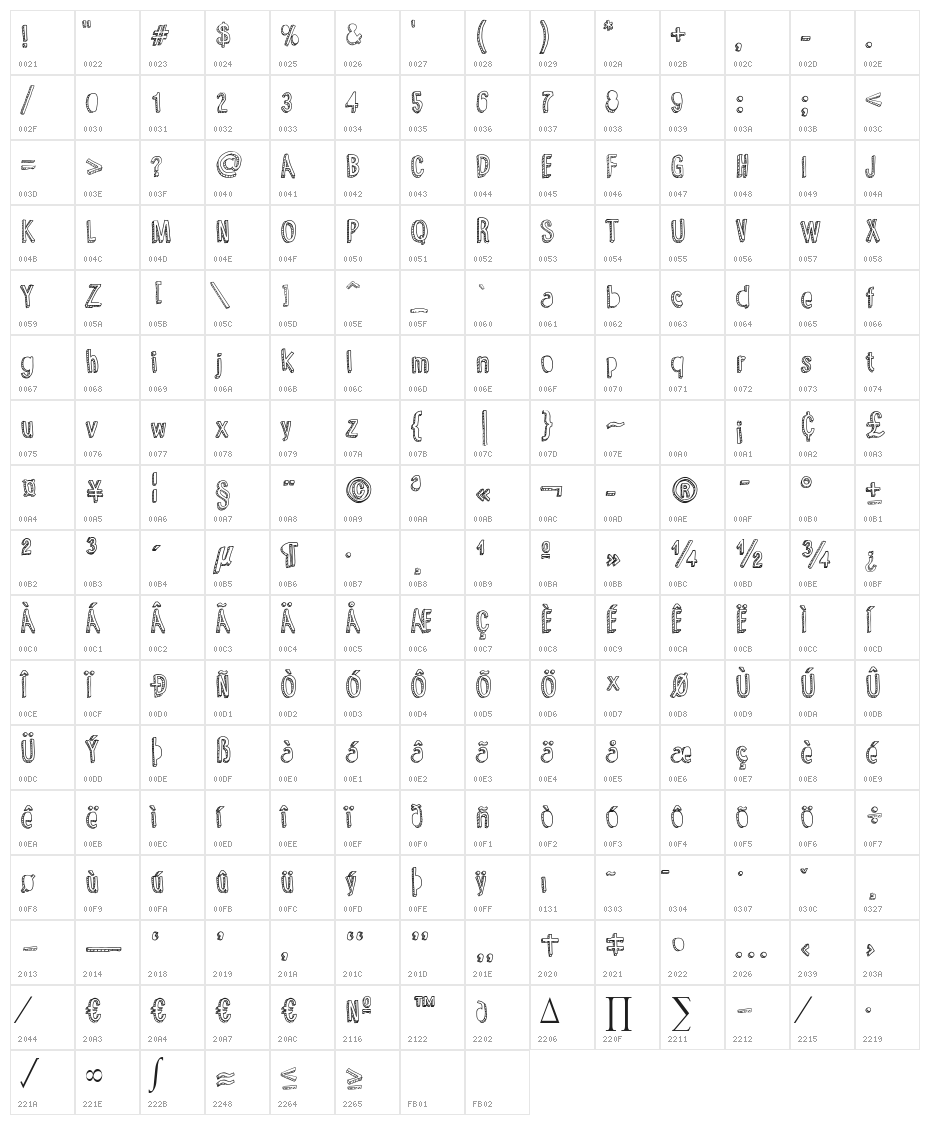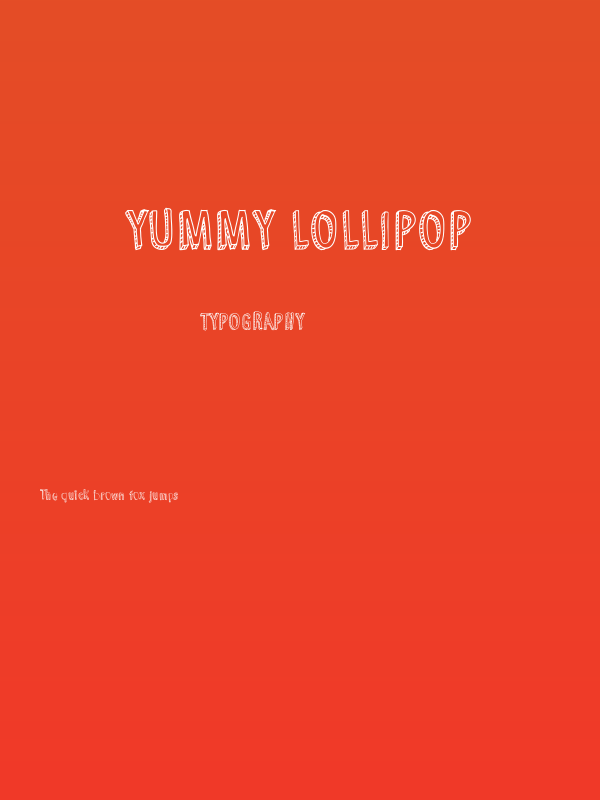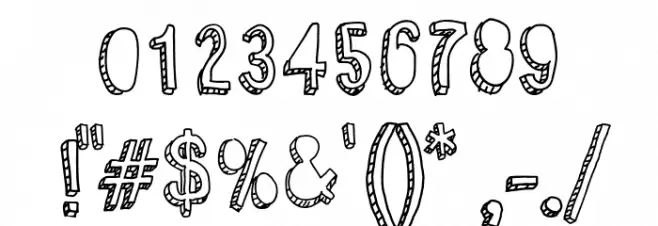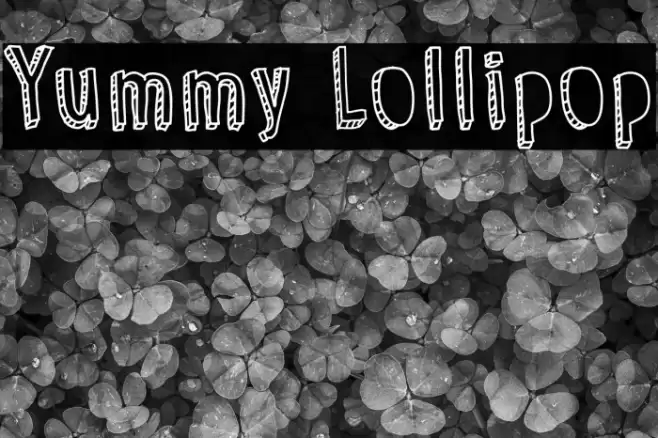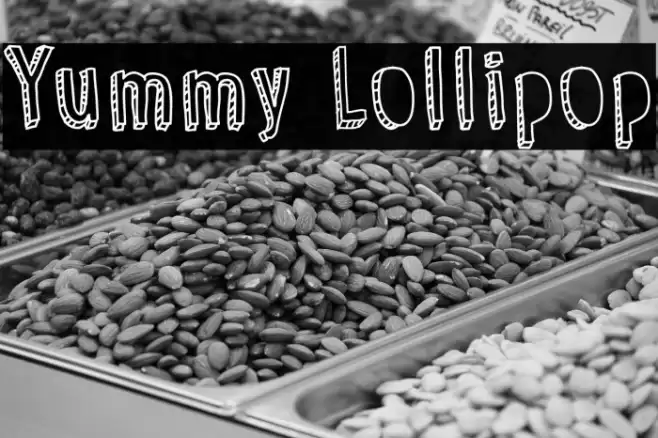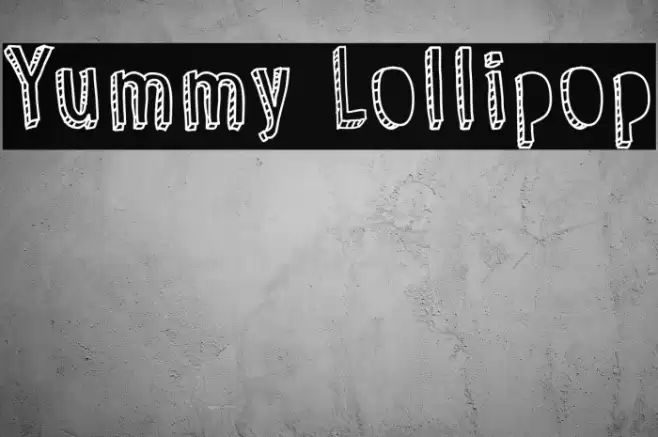
Yummy Lollipop Font
Yummy Lollipop Description
This playful and whimsical font features a hand-drawn, doodle-like style with a striped pattern inside each character. The letters are bold and slightly irregular, giving them a fun, casual appearance. The uppercase and lowercase letters maintain a consistent style, with rounded edges and a lively, energetic feel. Numbers and special characters are included, each with the same distinctive striped design. This font is perfect for projects that require a lighthearted and creative touch, such as children's books, party invitations, or playful branding.
| Overall Style | Playful, Whimsical |
| Use Case | Headlines, Logos, Creative projects |
| Proposed Projects | Ideal for children's books, party invitations, playful branding, and creative projects. |